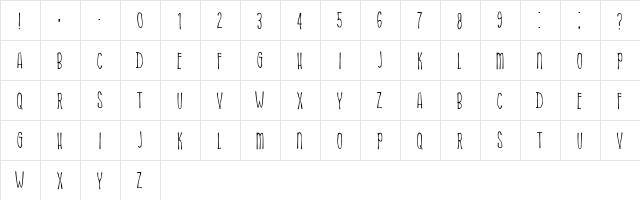
My Sweety Regular
| Foundry | Fatigo |
| Designer | Fatigo |
Design Context for My Sweety Typeface
My Sweety takes a measured approach to typography — its balanced proportions and neutral character make it a reliable workhorse for both digital and print work.